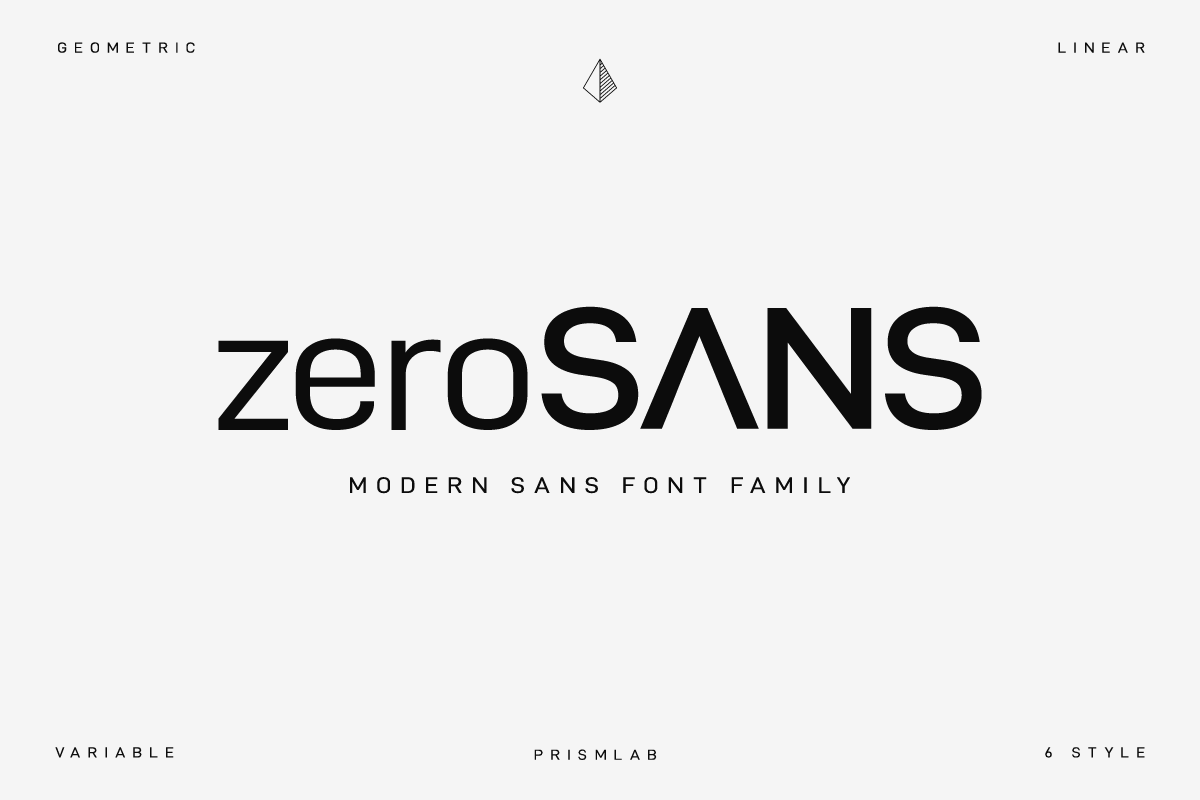
ZERO Is A Geometric Sans Typeface Inspired By Strong And Powerful Character. Bold And Sharp With Smooth Textures. Suitable With Your Business And Modern Company.